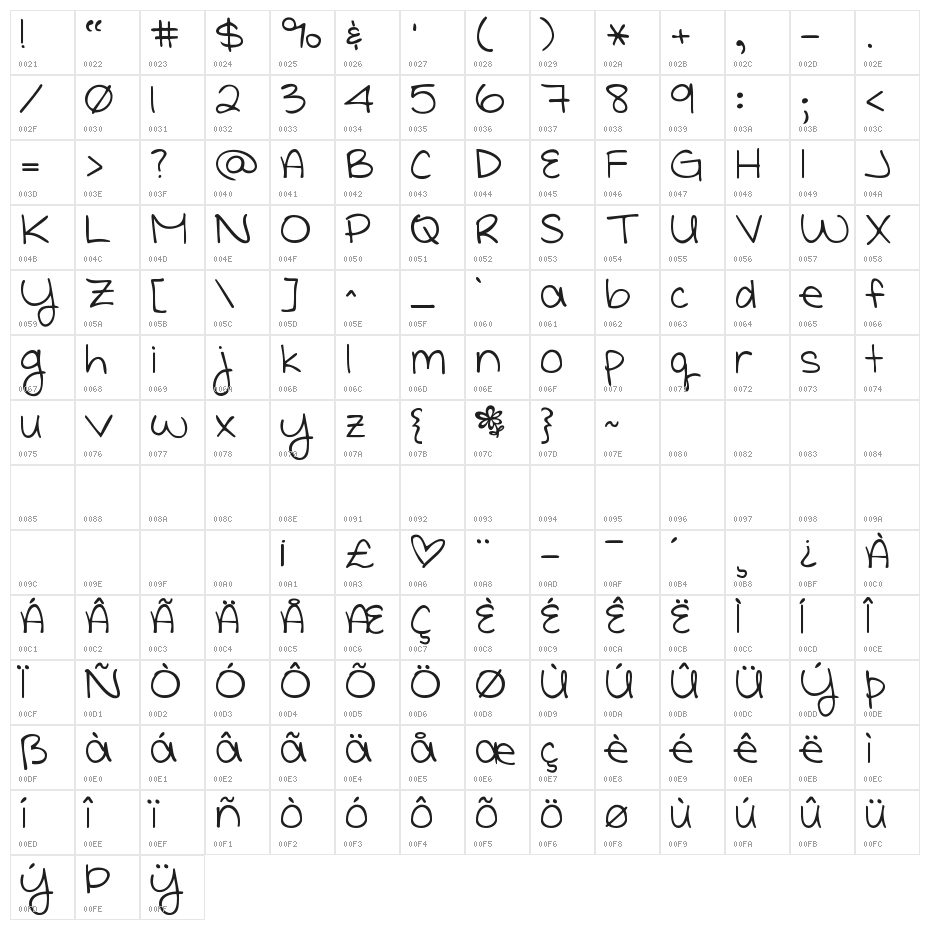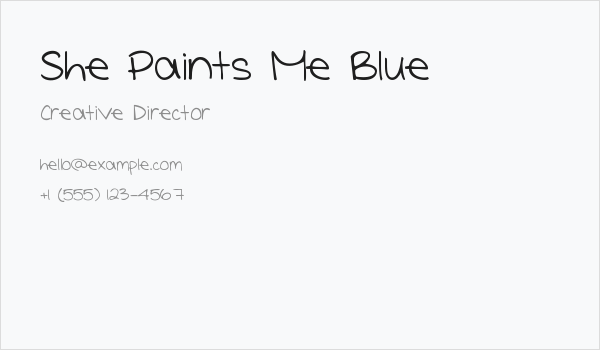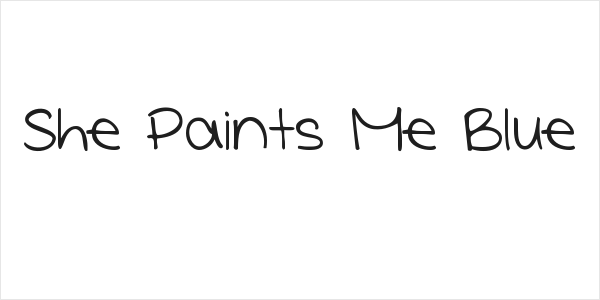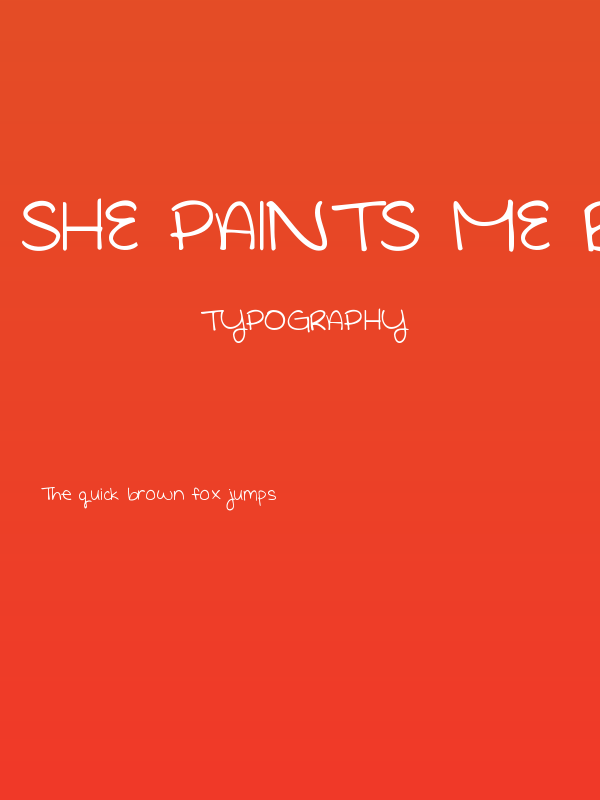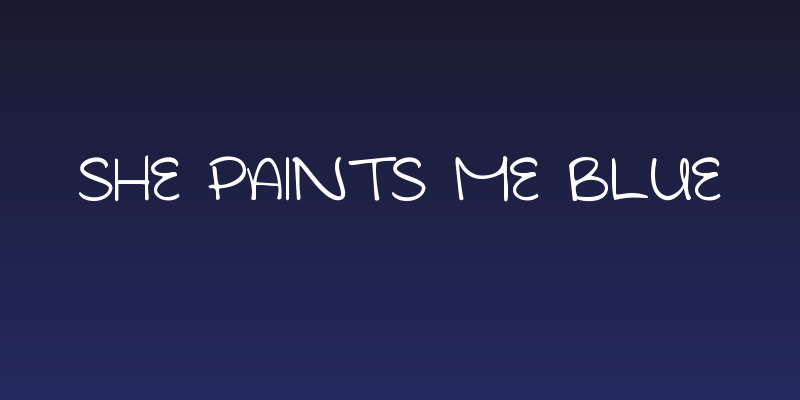
She Paints Me Blue Font
She Paints Me Blue Description
This playful and whimsical font features a handwritten style with smooth, rounded edges and a casual, friendly appearance. The letters are slightly irregular, adding to the charm and personality of the typeface. The uppercase and lowercase characters maintain a consistent flow, with some letters featuring unique loops and curves that enhance the overall aesthetic. The numbers and special characters are designed to match the playful nature of the alphabet, making this font suitable for creative and informal projects. Its legibility and distinct style make it a great choice for designs that aim to convey warmth and approachability.
| Proposed Projects | Ideal for greeting cards, children's books, playful branding, and social media graphics. |